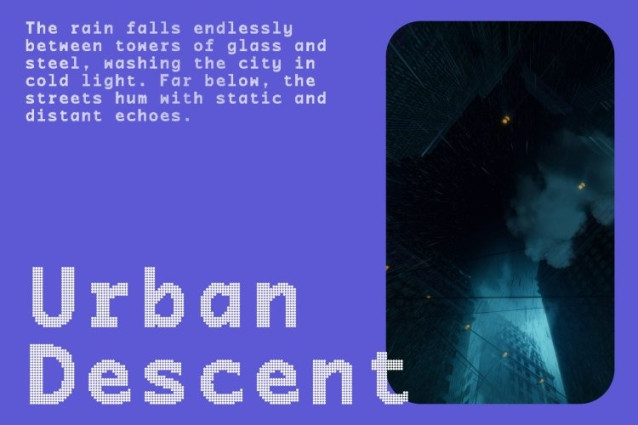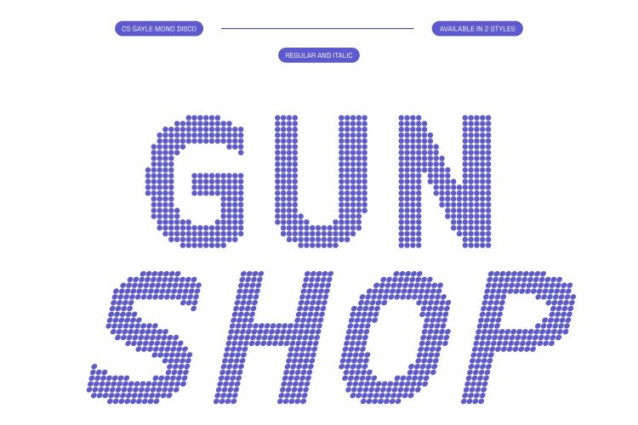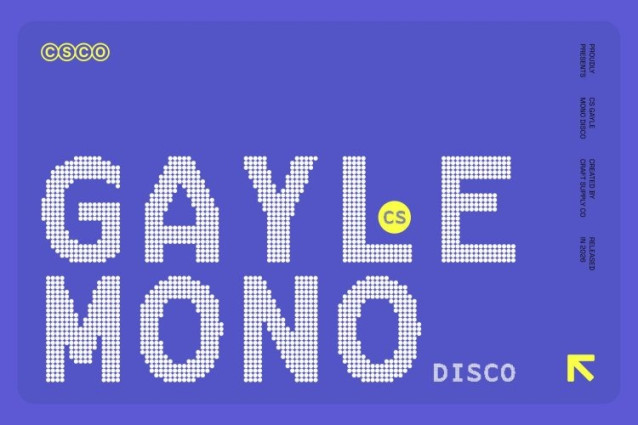
CS Gayle Mono Disco Font – This is a modern monospaced sans serif typeface defined by clarity, balance, and visual order. Its clean, sharp shapes ensure excellent readability while a subtle disco-era influence adds a gentle rhythm to its structure. The result is a font that feels precise, calm, and confidently expressive without losing its technical focus.
Designed for Technical and Structured Use
Created with technical contexts in mind such as programming, documentation, data presentation, and system interfaces excels in consistency and legibility. The monospaced construction keeps alignment precise, while its clear forms make long texts comfortable to read. This makes it ideal for code layouts, developer tools, and technology-driven projects.
Professional, Modern, and Retro-Forward
The crisp lines and controlled geometry give this font a modern, professional appearance, enhanced by a subtle retro-tech character inspired by the late 70s and early 80s digital aesthetic. It feels functional yet stylish, blending technical accuracy with understated personality.
Versatile for Digital and Print Applications
This font adapts seamlessly across digital interfaces and print materials. Whether used for UI design, coding environments, technical branding, or editorial layouts that require structure and clarity, this font provides a reliable and visually engaging typographic solution where precision and readability matter most.